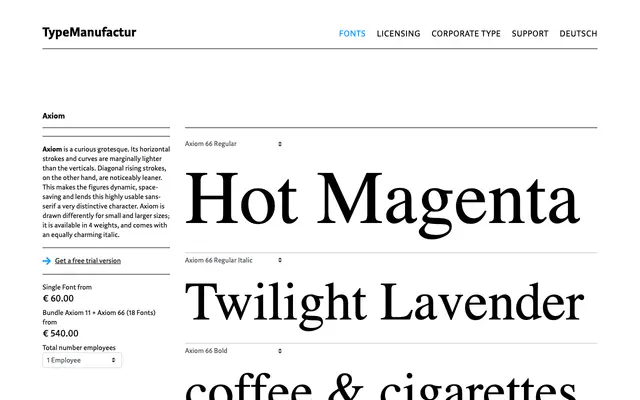
A contemporary serif with two optical sizes, small caps and italics across four weights, suited to sustained editorial and reading contexts.
Axiom is structured around two optical size subfamilies: Axiom 11, tuned for smaller text settings, and Axiom 66, intended for display or headline use. Each subfamily offers Light, Regular, Bold and Black weights, with italics and small caps variants rounding out the range. The family is clearly positioned for editorial and typographic work that demands legibility and formal control at both text and display sizes.
The presence of small caps, italics, and two optical size subfamilies (11 and 66) points to a text-oriented contemporary serif designed for sustained reading and editorial use across scales.